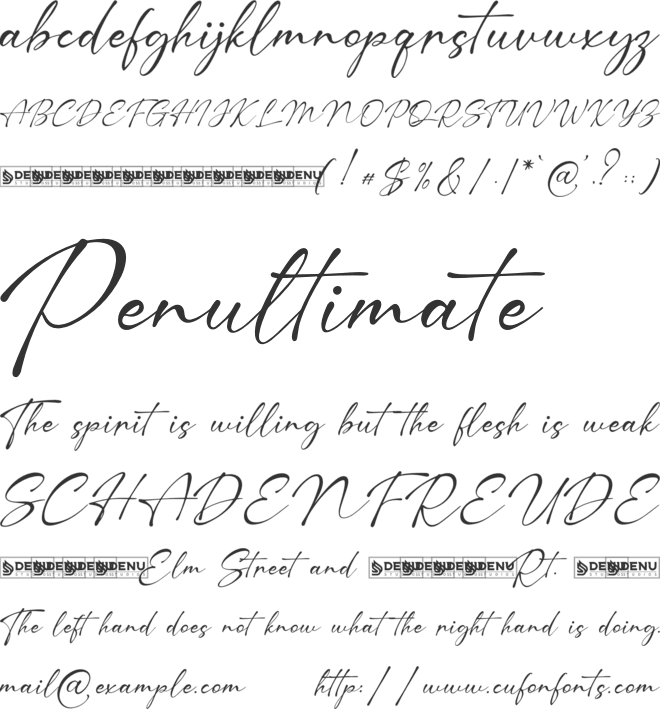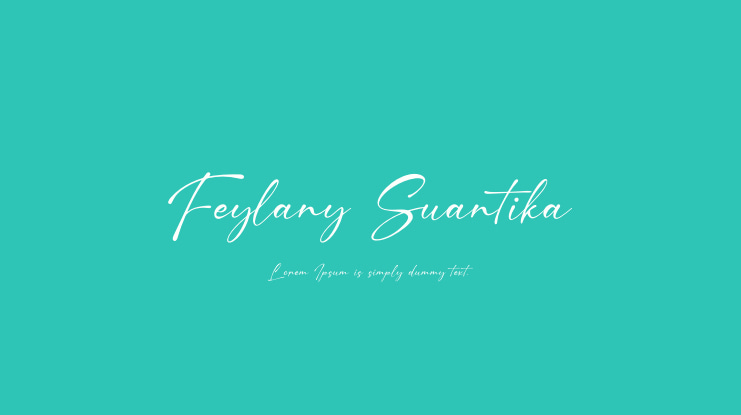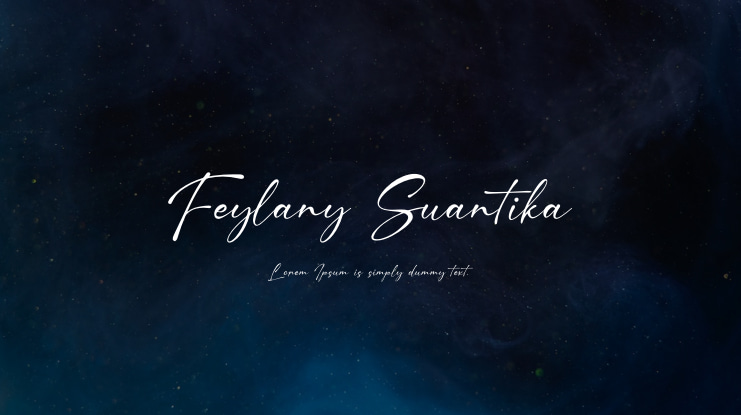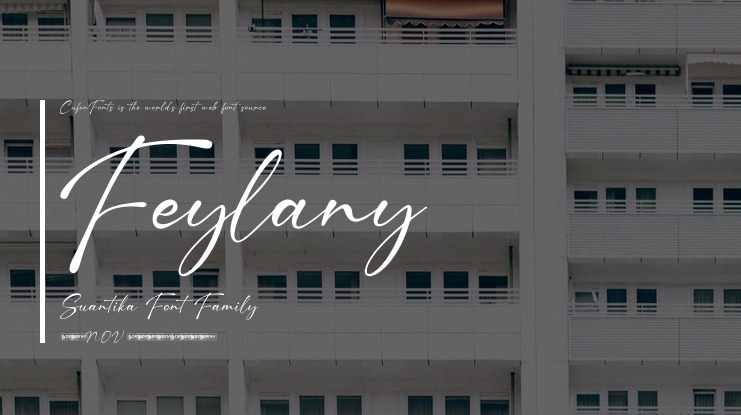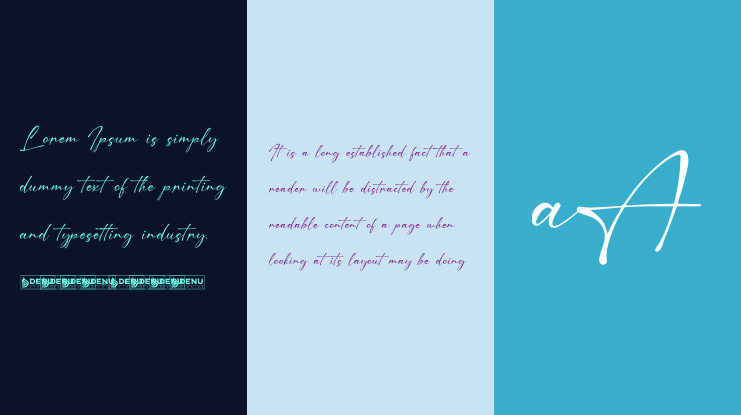
Feylany Suantika | Handwritten Script is suitable for any projects such as: logos, branding projects, homeware designs, product packaging, mugs, quotes, posters, shopping bags, t-shirts, book covers, name card, invitation cards, greeting cards, label, photography, watermark, special events, and all your other lovely projects that need a beautiful script taste.